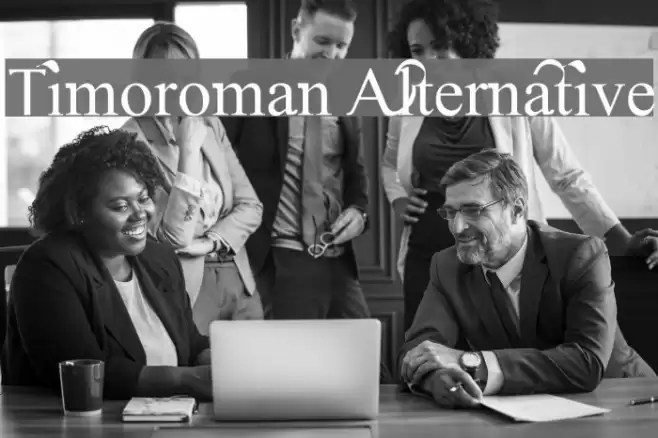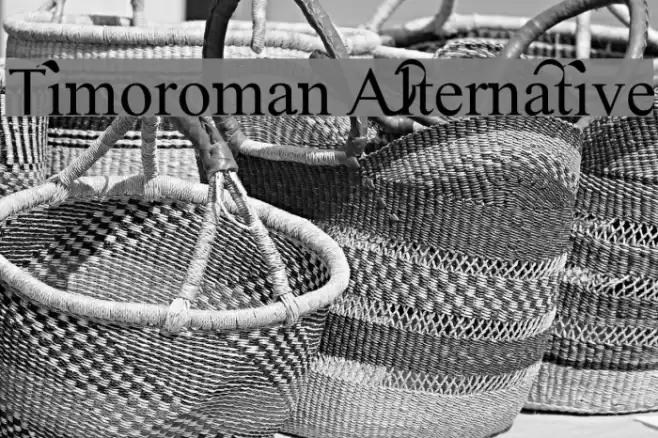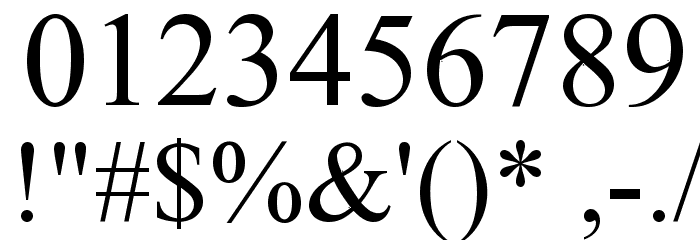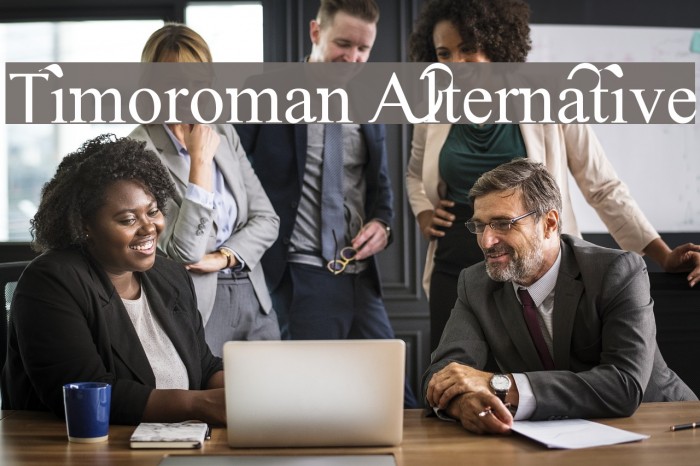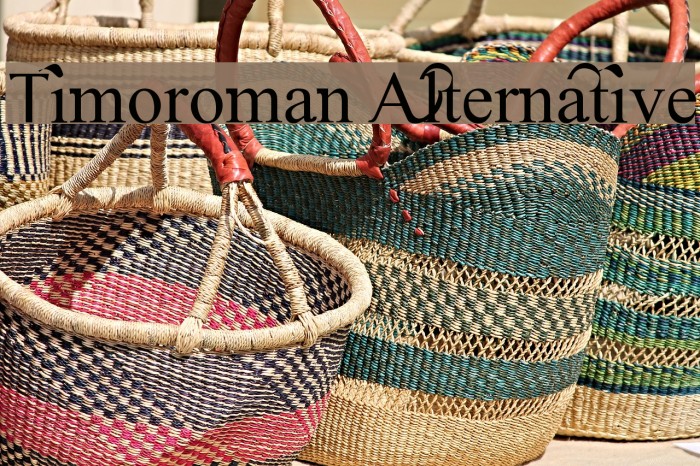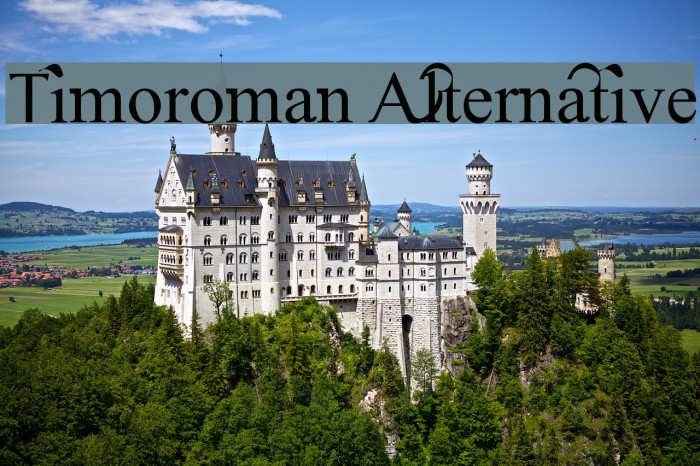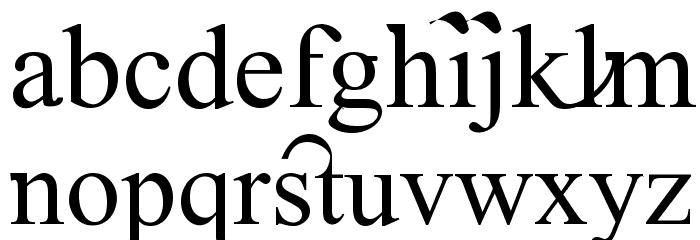
Timoroman Alternative Font
Timoroman Alternative Description
This font exhibits a classic serif style with a modern twist. The characters are elegantly crafted with distinct serifs that add a touch of sophistication. The uppercase letters are bold and commanding, while the lowercase letters maintain a graceful flow. The numerals are clear and traditional, ensuring readability. Special characters are well-integrated, maintaining the overall aesthetic. The font's design is versatile, suitable for both formal and creative applications, making it a great choice for projects that require a blend of tradition and modernity.
A classic serif font with a modern twist, featuring elegant and sophisticated characters from Uncategorized fonts.
- Proposed Projects: Ideal for editorial design, book covers, branding, and formal invitations.
- Overall Style: Classic